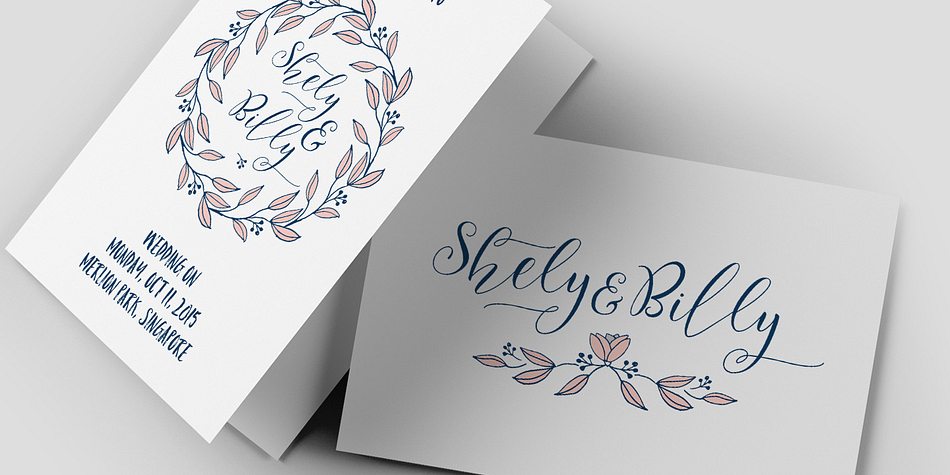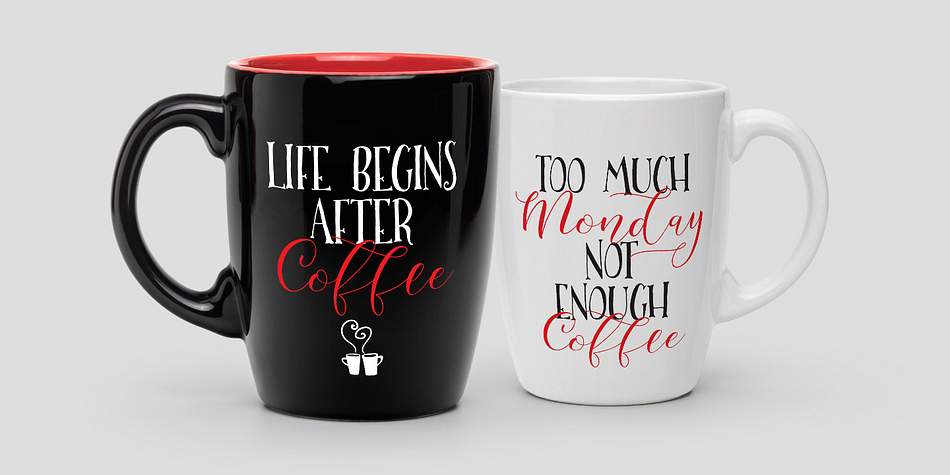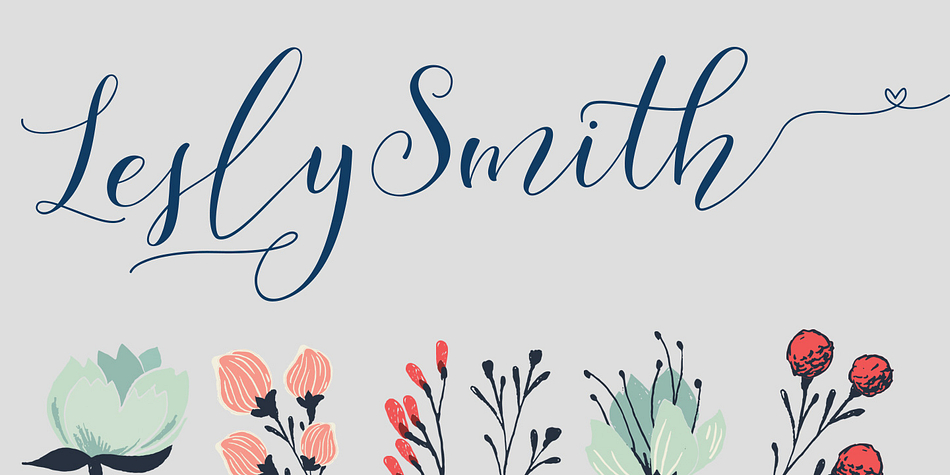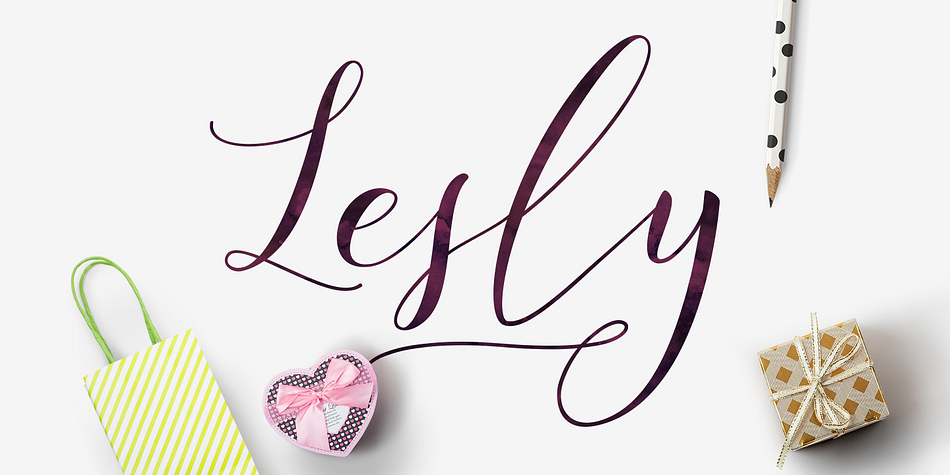
Lesly is a dingbat, script and modern calligraphy font family. This typeface has two styles and was published by mysunday.
Lesly is a handmade script font cooked with feeling. It includes an abundance of glyphs, alternates, and ligatures. Lesly can be used for various purposes: headlines, signatures, logos, wedding invitations, t-shirt, signage, labels, posters, badges etc.